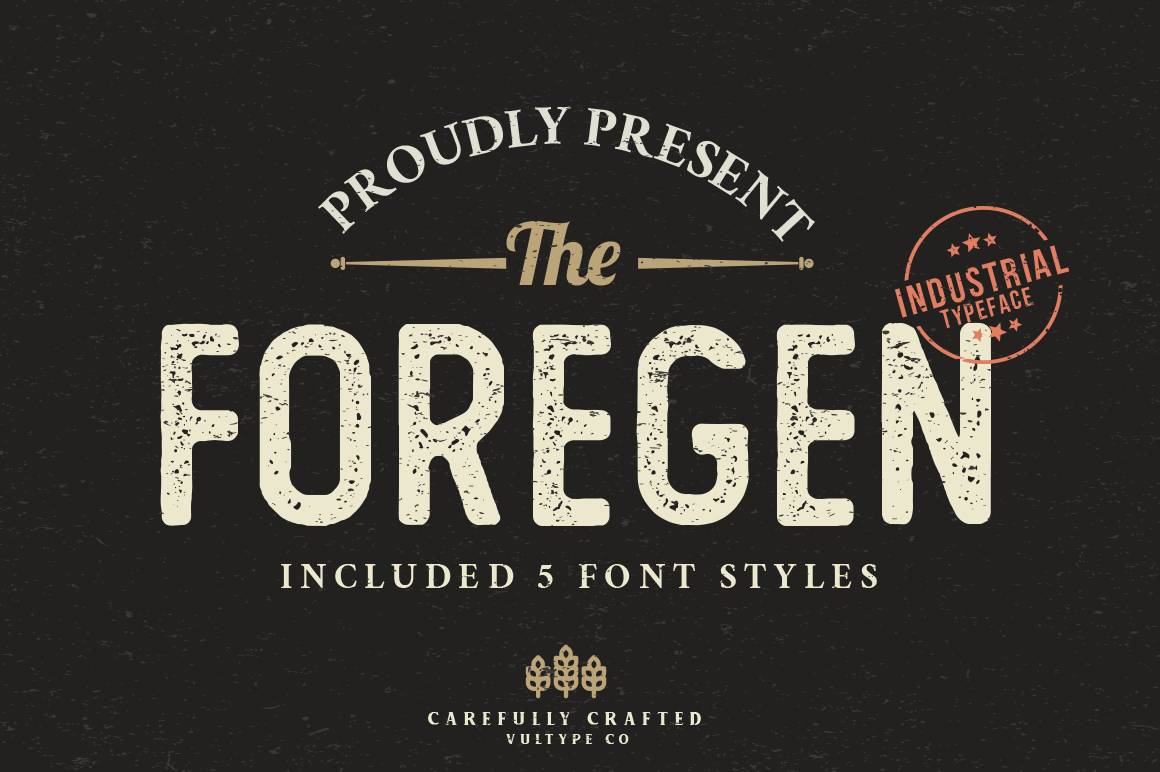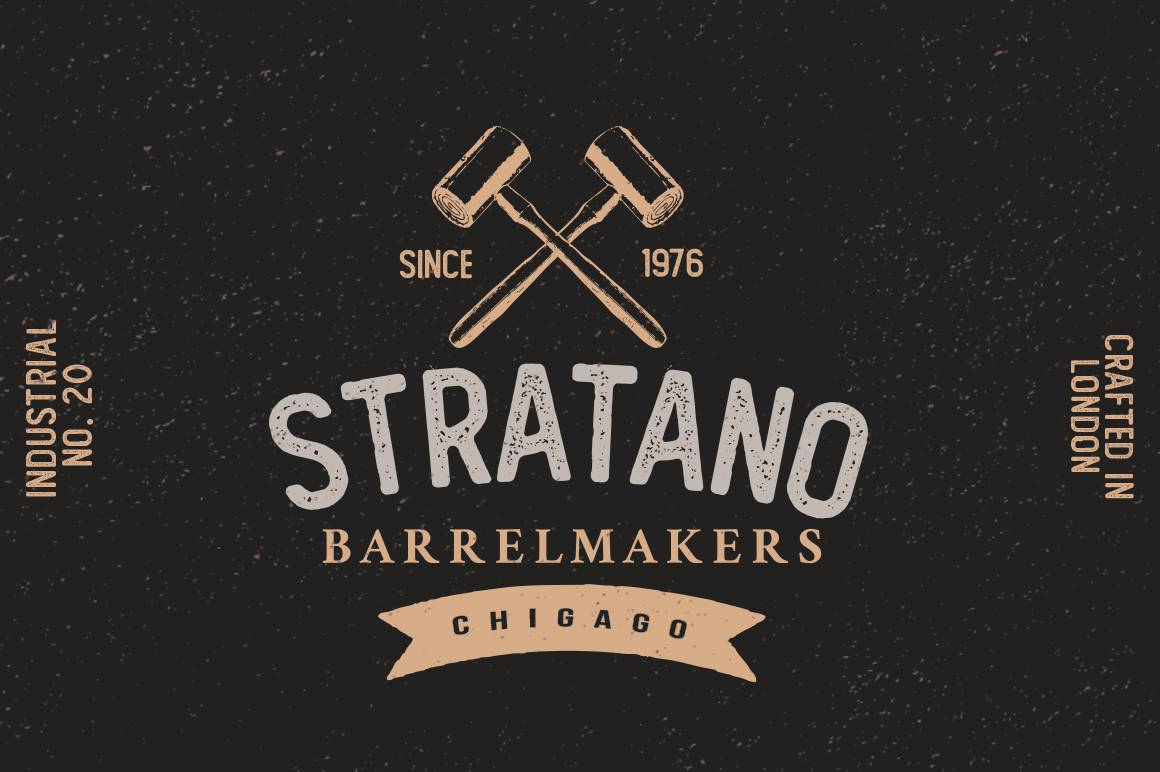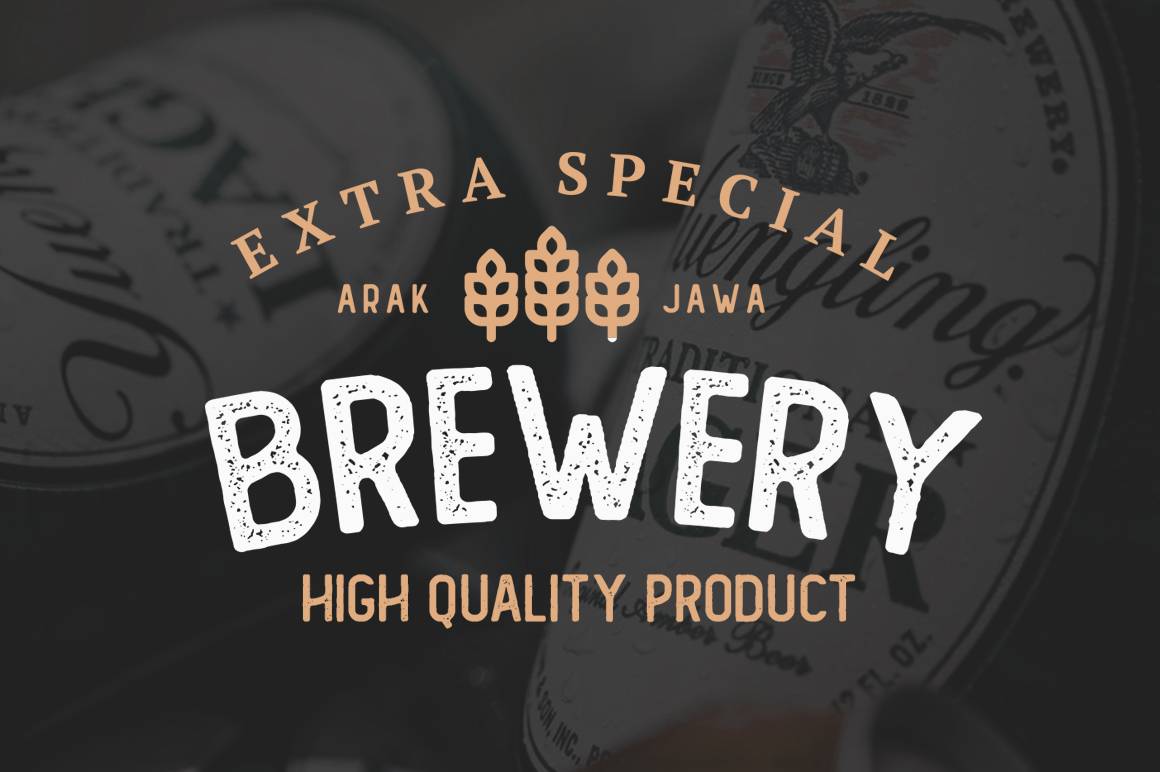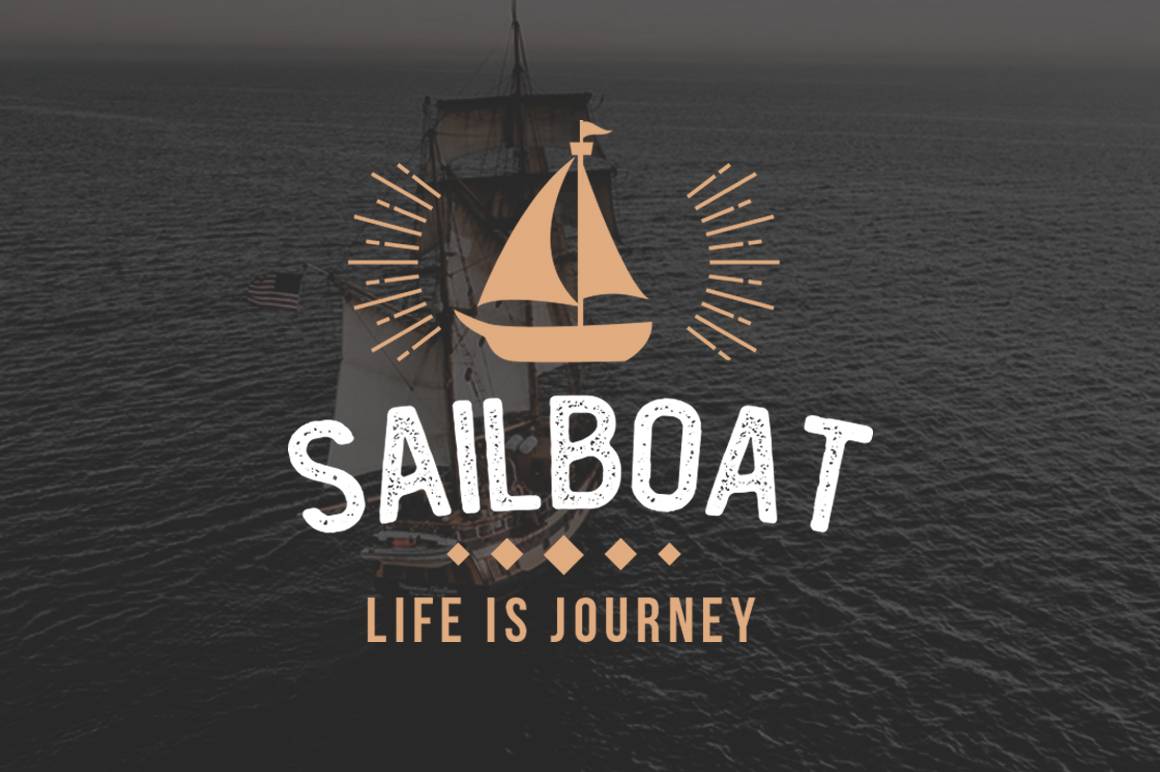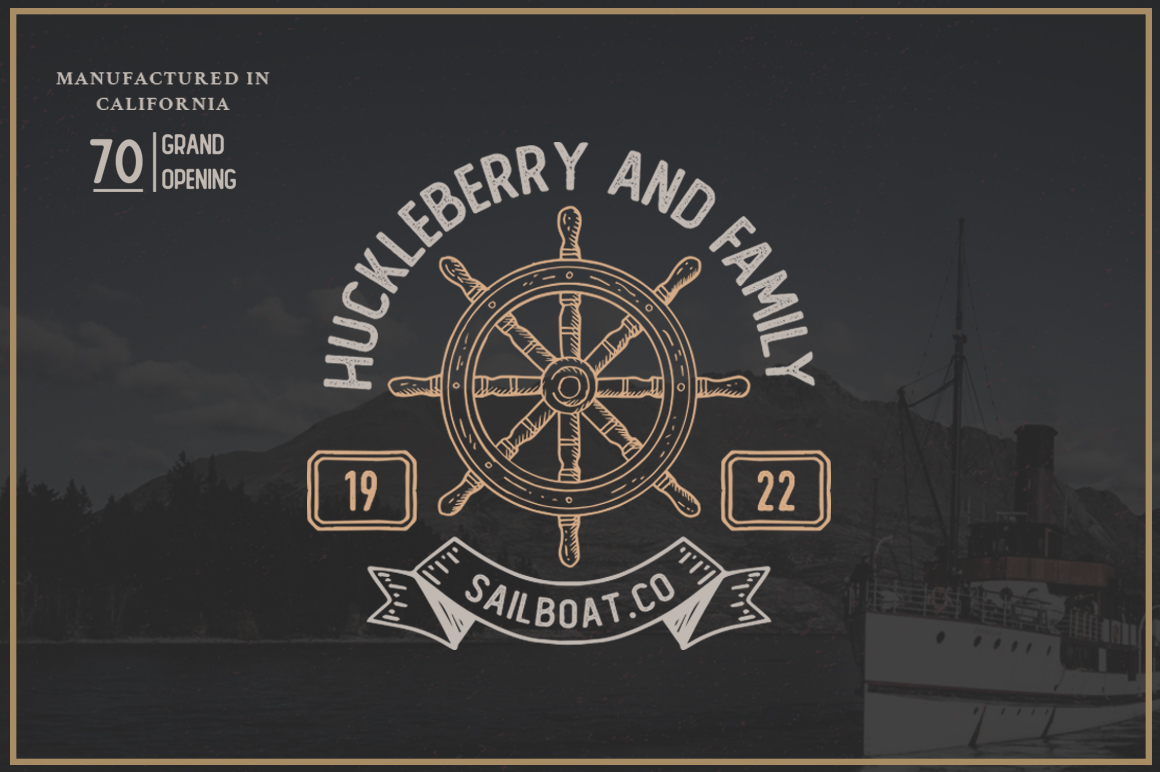
The Foregen Vintage Font is a bold, condensed sans serif with a distinctly retro feel, featuring rounded corners and uniform stroke widths that give it a friendly yet confident appearance. Its clean, slightly narrow letterforms and straightforward shapes make it ideal for vintage-inspired branding, headlines, and packaging that demand clear readability with a charming nostalgic touch. This font works well for projects seeking to evoke classic style with a modern, approachable vibe.
The Foregen Vintage Font
About The Foregen Vintage Font
| Font family | The Foregen Vintage Font |
| Release date | 2019-03-29 |
| Designer | Vultype Co |